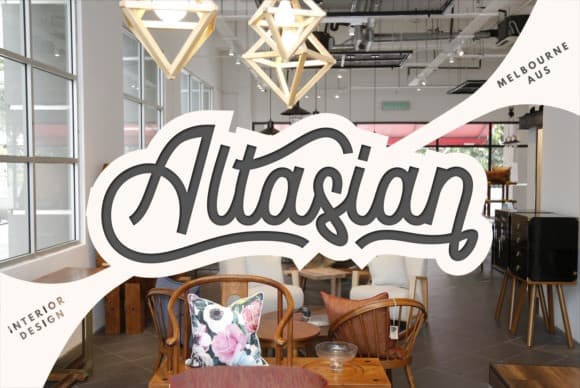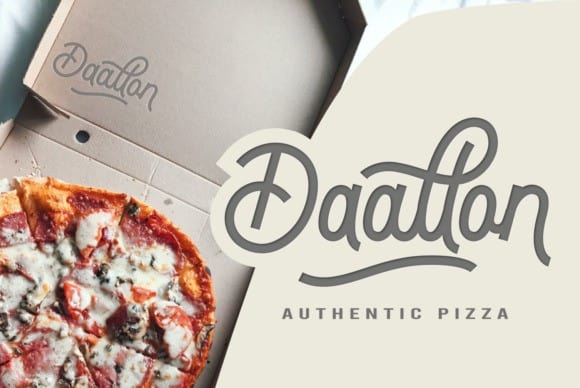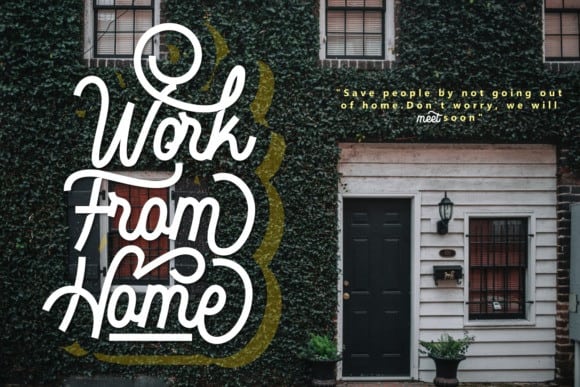
Balkous Script Font
Introducing Balkous Script Font – is a new typeface Monoline that is made by hand, comes with uppercase, lowercase, numerals, punctuations and so many variations on each character include OpenType alternates, common ligatures and also additional swash to let you customize your designs. Balkous is a stylish and incredibly elegant script font. It looks stunning on wedding invitations, thank you cards, quotes, greeting cards, logos, business cards and every other design which needs a handwritten touch.